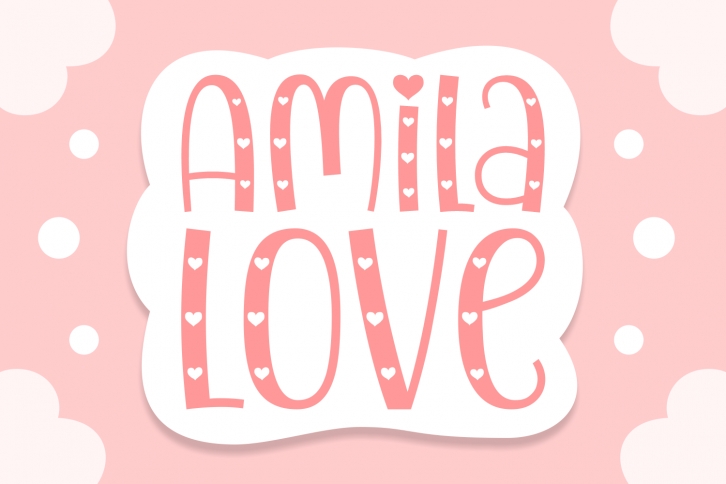
The Amila Love font is an adorable display font, with cute heart elements and smooth lines. Use this font when making your Valentine’s Day crafts, or Mother’s Day designs. It is compatible with your cutting machines, such as Cricut or Silhouette.